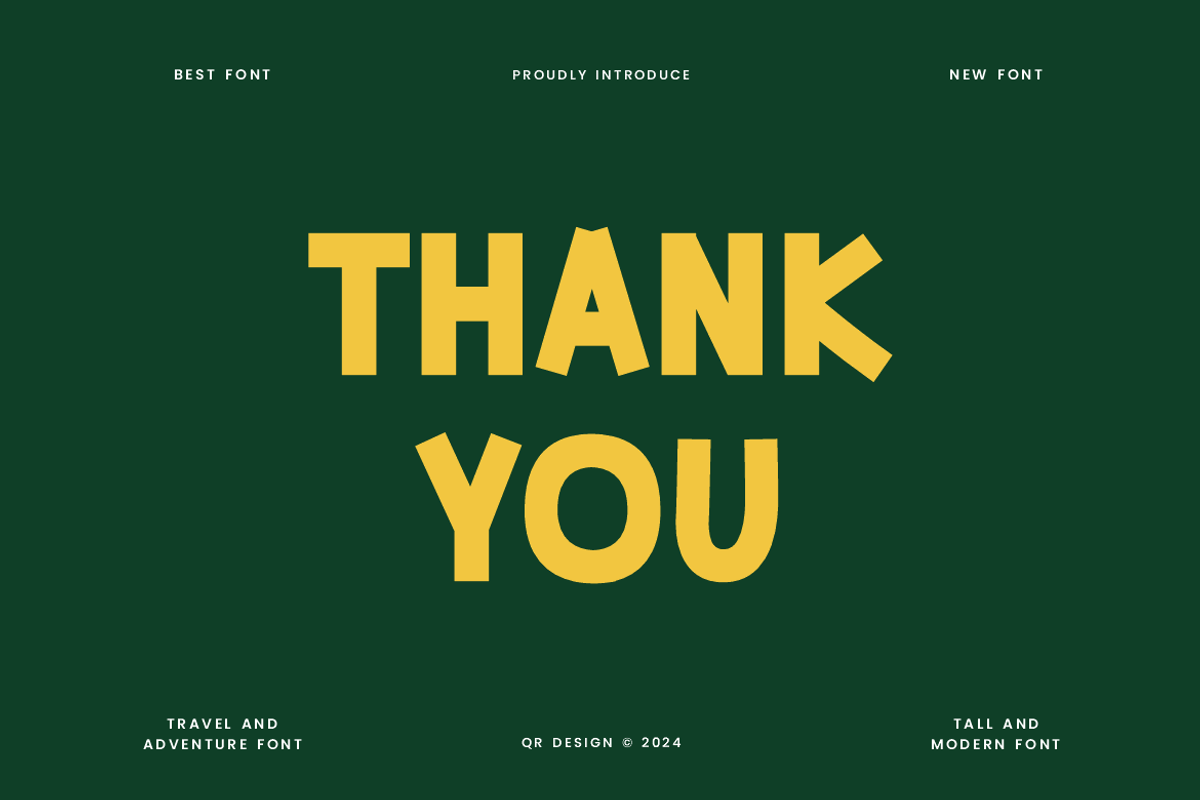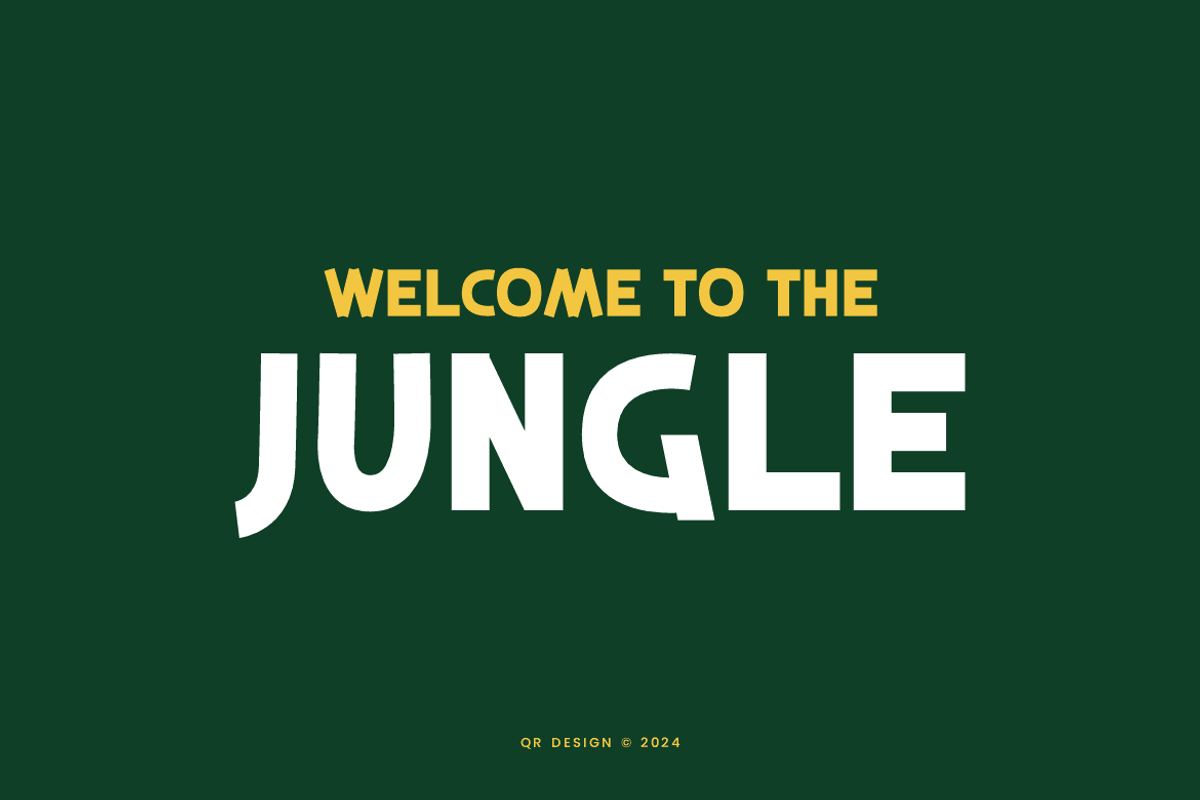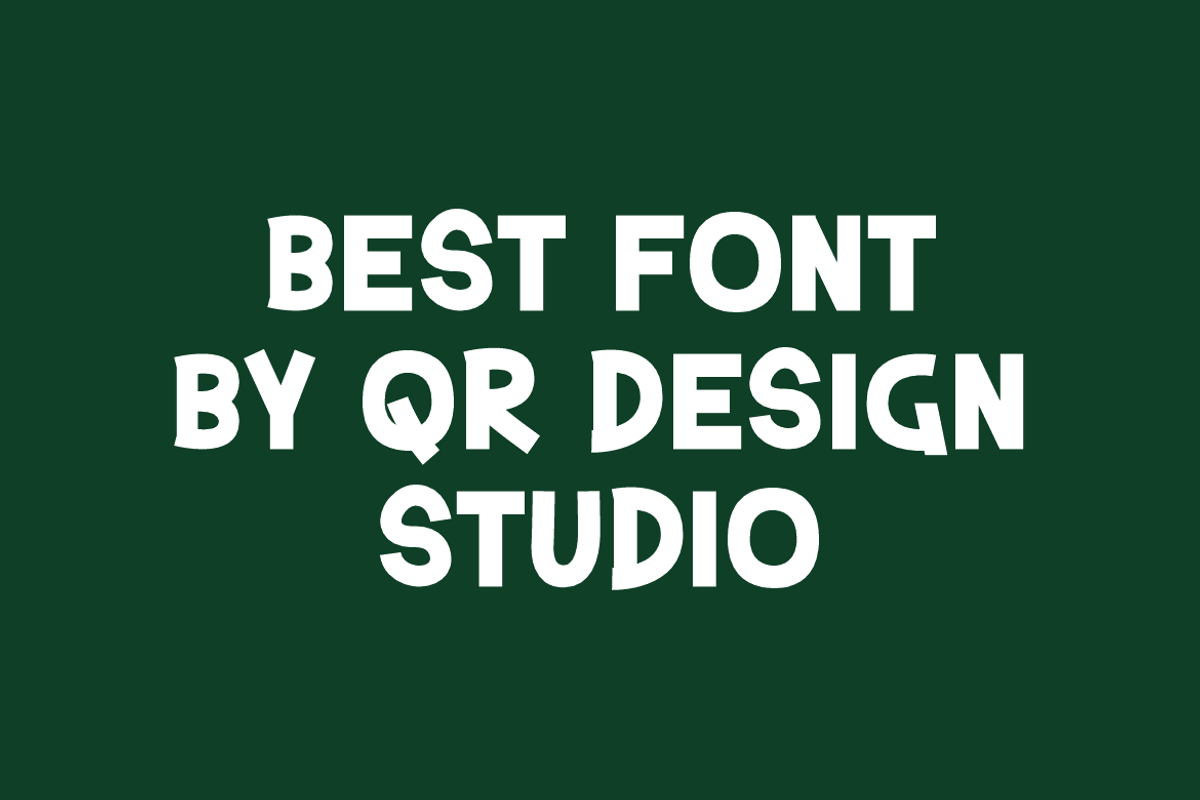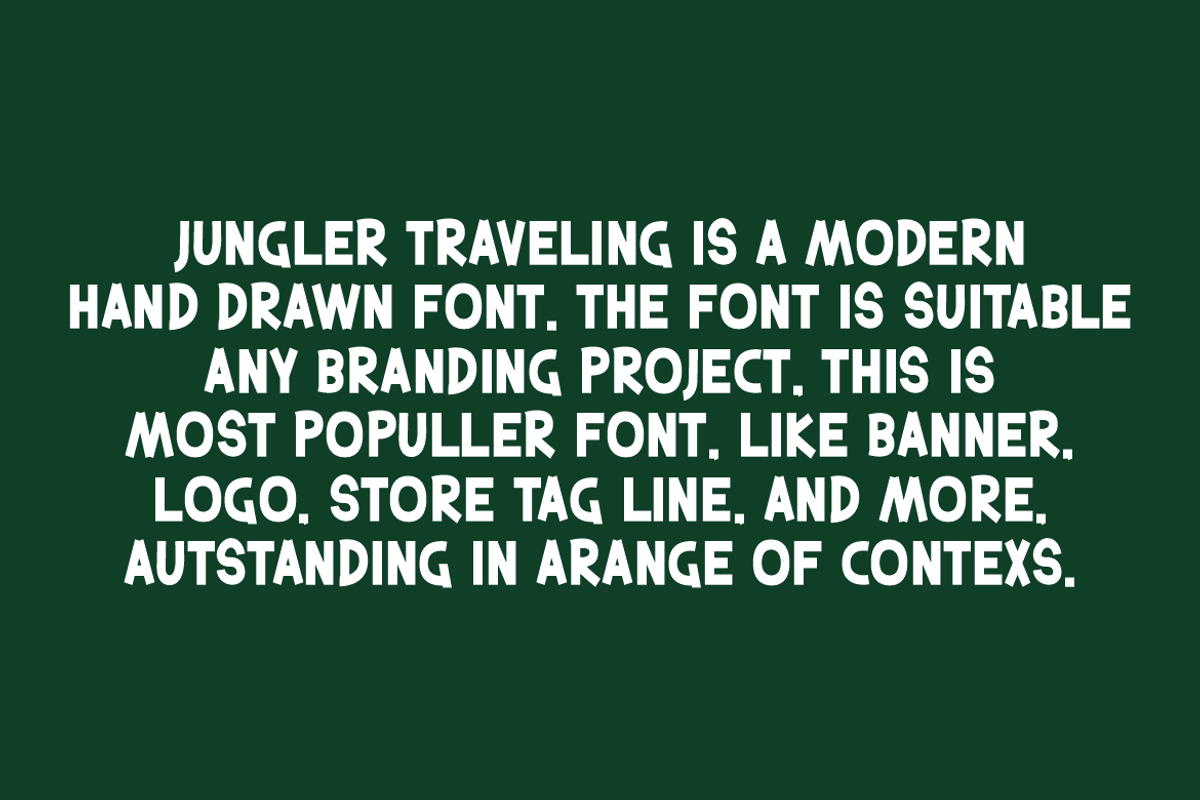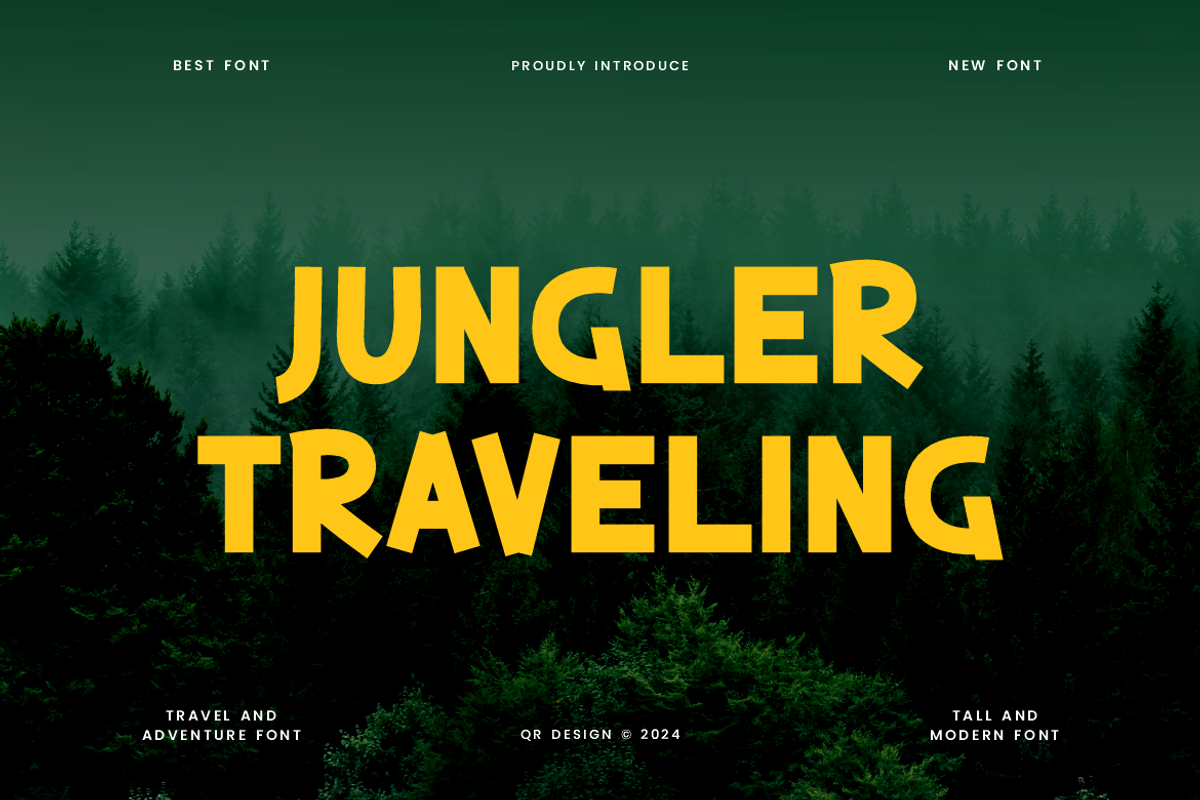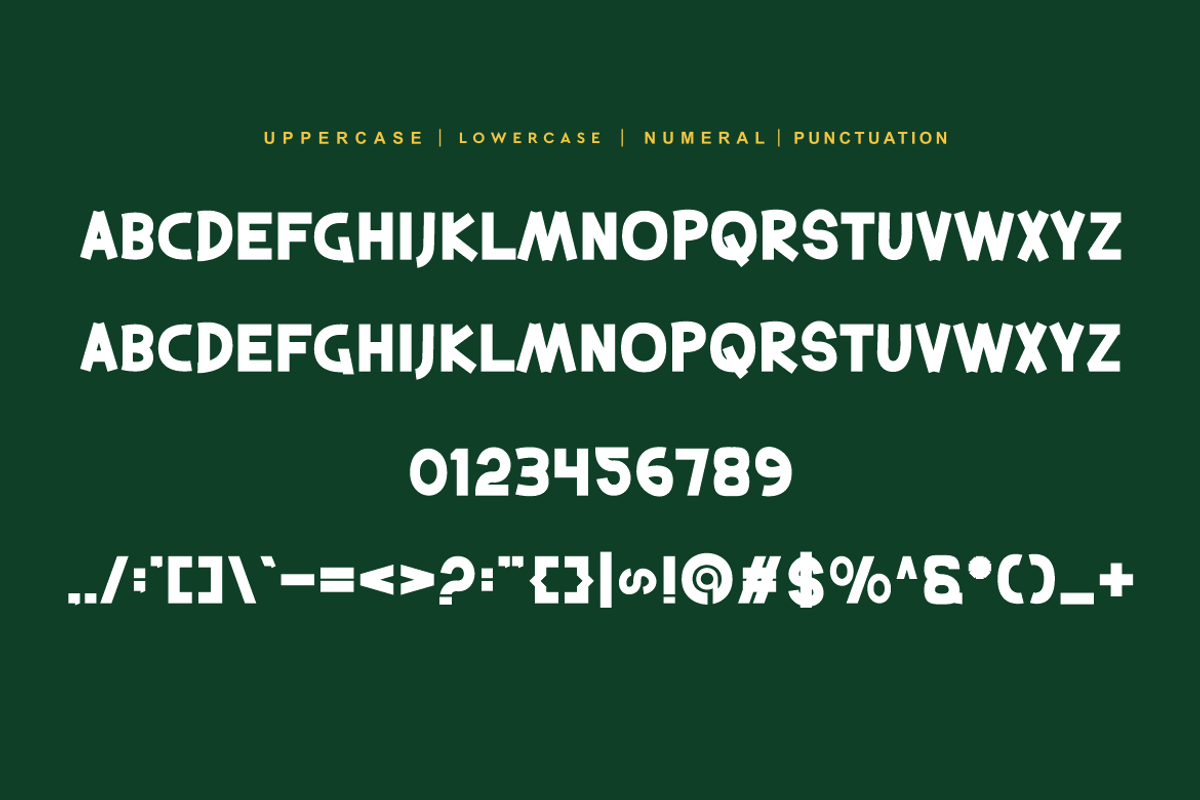
Jungler Traveling Paint & Adventure
Jungler Traveling Font is a modern and authentic display font. The font is suitable for any branding project like poster, logo, sport, and many more. Outstanding in a wide range of contexts.